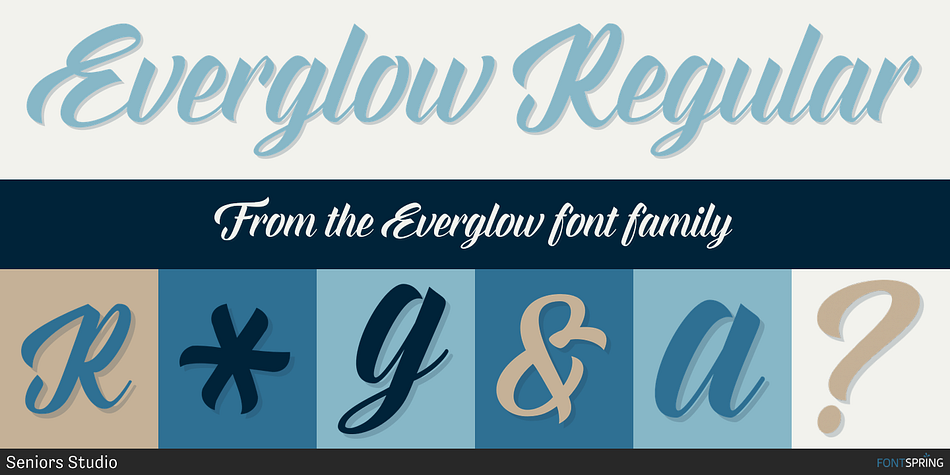
Everglow Regular
Everglow is a brush script font published by Seniors Studio.
Everglow Script is retro signage font, bold and clean.
Everglow Script is retro signage font, bold and clean. There are many variations to each character. The font includes Opentype stylistic alternates, standard ligatures, ornament and multilingual support.
Everglow Script features 560+ glyphs and 322 alternate characters. It includes initial and terminal letters, alternates, ornaments, swashes, ligatures and multiple language support.